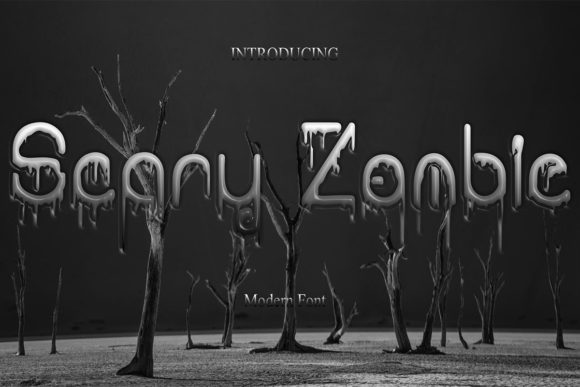
Scare the socks off your design ideas with Scary Zombie, a haunting display font crafted to make your Halloween graphics scream style! Its eerie and unsettling curves will give your posters, flyers, and social media posts the perfect touch of spooky sophistication.
We're not tricking you when we say Scary Zombie is the most terrifying font you'll ever download. Its razor-sharp edges and ominous glyphs will make your audience shiver with delight. And with its extended character set, you can cast a spell on your designs in any language.
If you're looking to unleash your inner monster this Halloween, Scary Zombie is the perfect font to conjur an atmosphere of bone-chilling chills. Its spine-tingling design will make your creations the talk of the town, leaving a lasting impression on all who dare to look.
So, don't be a scaredy cat! Embrace the dark side and download Scary Zombie today. It's the font that will haunt your designs with style and leave your audience begging for more. Let Scary Zombie cast its spell on your next Halloween masterpiece!